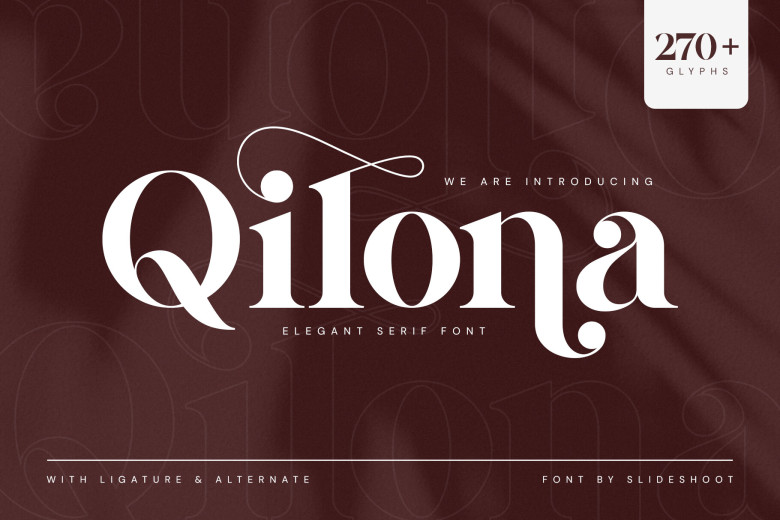
Qilona Font
Qilona Serif is moderately contrasted, of a rounded gauge, of a balanced period, refined and official serif typeface. He has a beautiful character He has a beautiful character, It has a character, a beautiful character, This is what he said has a beautiful character. It perfectly complements invitation card designs, company logos, moving titles, names of both movies and companies, book and brand names, and many others.
The font Qilona Serif is a clean, serene sans serif font that gives a royal and elegant look. These make EL and EM elegant in a sexy look which make this font suitable for any project. This font is available in PUA encoded which essentially makes that it has all the awesome glyphs and ligatures for your use.
Qilona Serif Font